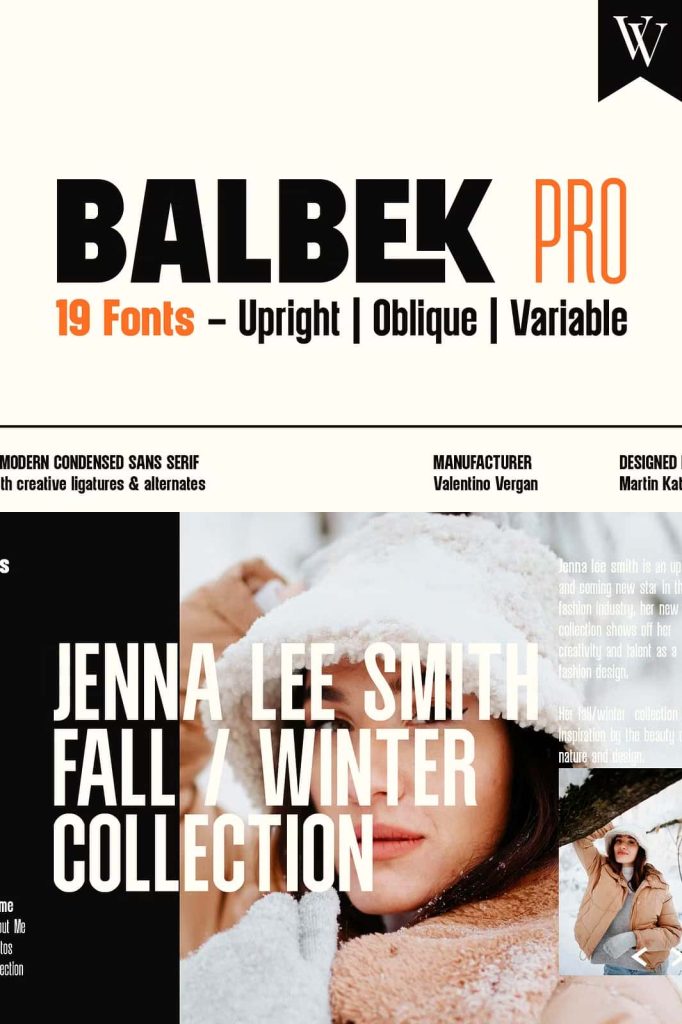
Balbek Pro is a modern sans serif, it was designed with neutral aesthetic letters that create a natural condensed look. Balbek Pro has an improved design, better legibility and more characters than the original Balbek typeface.